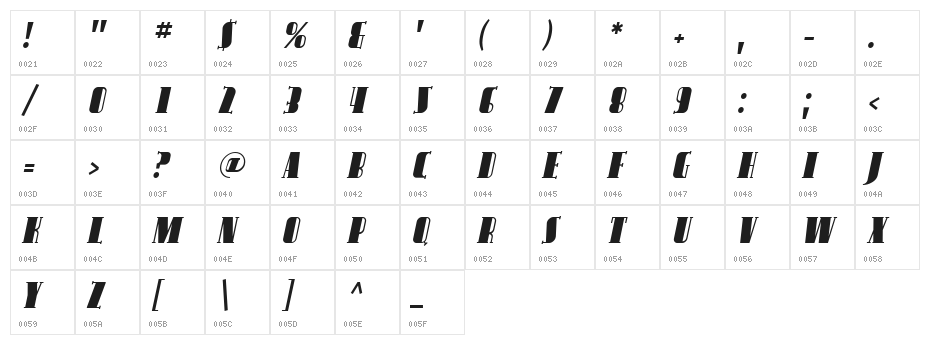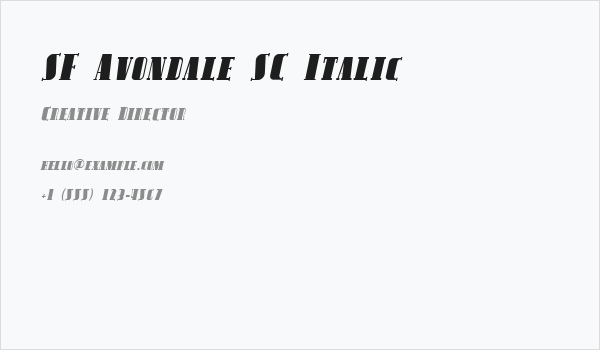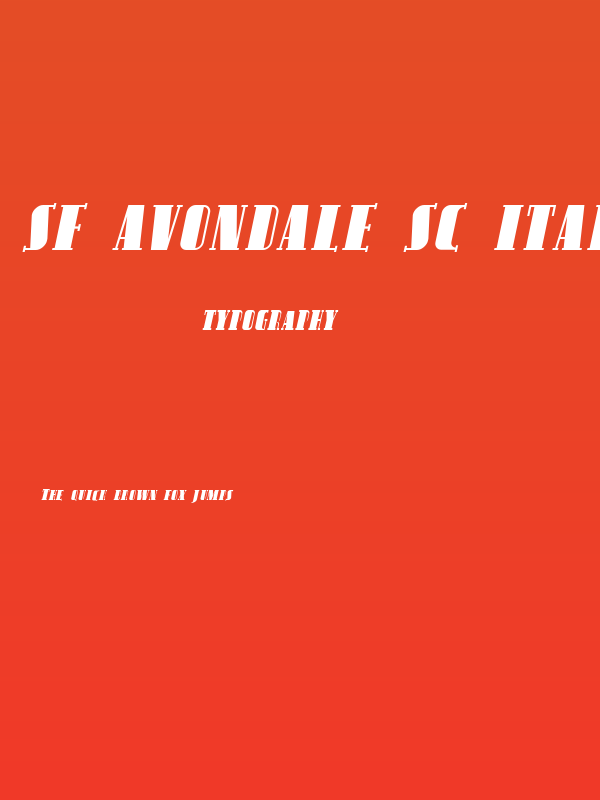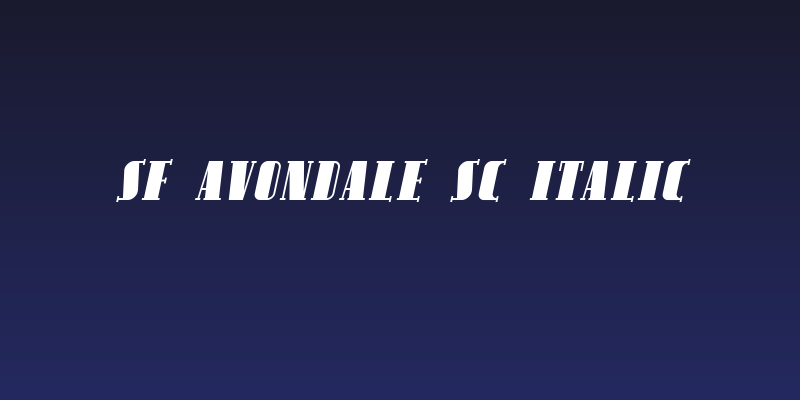
SF Avondale SC Italic Font
SF Avondale SC Italic Description
This font exhibits a bold and striking presence with its italicized form, characterized by sharp, angular serifs and a strong vertical stress. The letters are slightly condensed, enhancing their impactful appearance. The uppercase and lowercase characters maintain a consistent style, with a noticeable slant that adds dynamism and movement. The numbers and special characters follow the same design principles, ensuring uniformity across all glyphs. The overall aesthetic is modern and assertive, making it suitable for attention-grabbing headlines and titles.